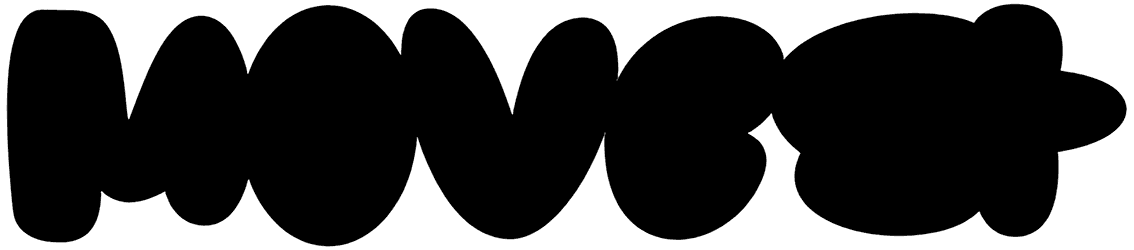
Movest Font
If you want to have a cool artistic visual for your layout, this graffiti font could be interesting for you. The bold and natural style of the Movest font’s characters can surprise your followers. With A-Z characters in two versions, this urban font can be used for many projects such as a hip-hop party invitation flyer, a skateboard design, and so forth.